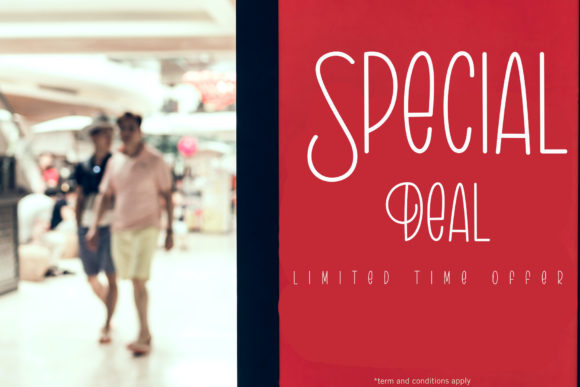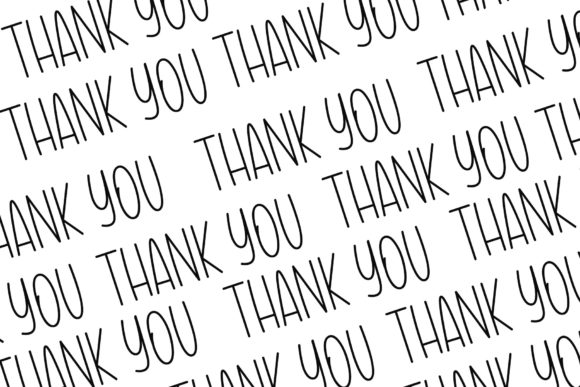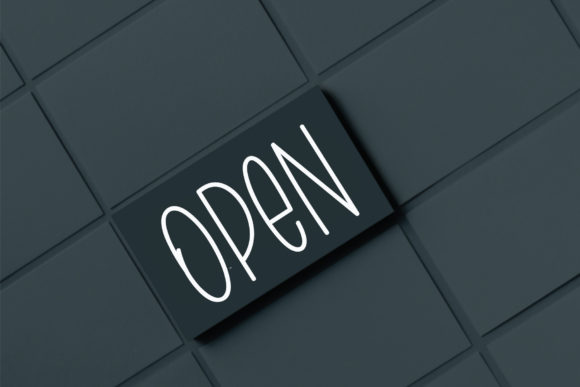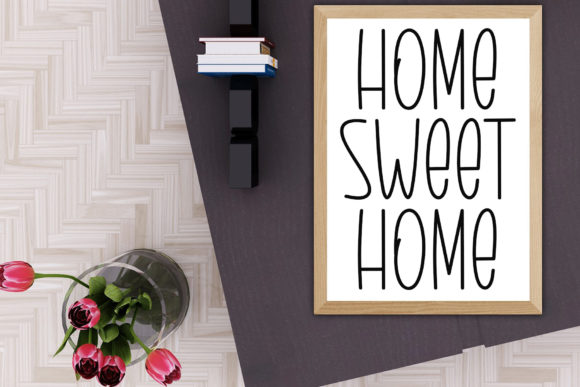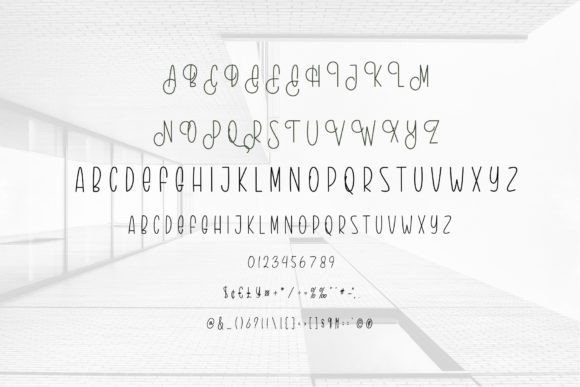
Bassed Font
About Bassed Font
Introducing Bassed, a beautiful and slim handwritten font designed to add a touch of elegance to your creative projects. Whether you’re creating wall displays, wedding invitations, social media posts, logos, advertisements, product packaging, labels, photography watermarks, stationery, or any project requiring impressive typography, Bassed is the perfect choice.
The slim and graceful nature of Bassed makes it a versatile font that effortlessly enhances various design contexts. Its beauty lies not only in its aesthetic appeal but also in its adaptability, allowing you to elevate your projects with impressive typography.
Bassed is a valuable asset for designers seeking a font that seamlessly integrates into a myriad of applications. From the refined elegance of wedding invitations to the modern appeal of social media posts, Bassed can effortlessly convey your message with style.
One of the standout features of Bassed is its PUA encoding, providing easy access to all glyphs and swashes. This enables you to personalize your text, adding custom touches to suit the unique requirements of your projects. With Bassed, your creative journey becomes a smooth exploration of typography, where every curve and stroke contributes to an impressive visual narrative.
Immerse yourself in the sophistication of Bassed as it becomes the go-to font for projects demanding an infusion of beauty and style. Let Bassed be the elegant thread that ties together your designs, leaving a lasting impression on your audience.